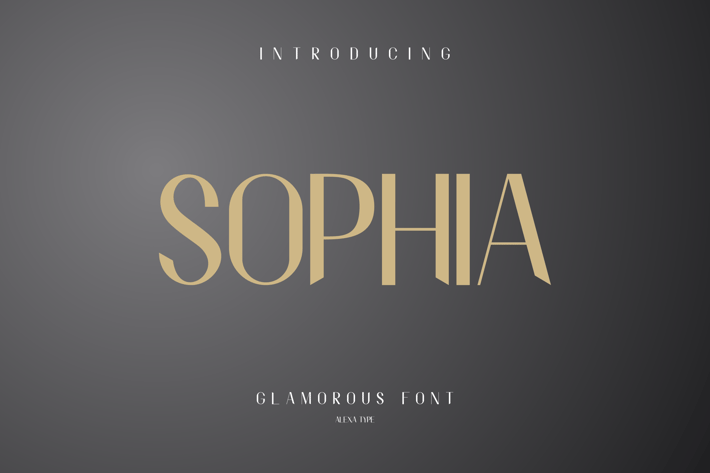
Sophia Font
Sophia is a luxurious, modern sans-serif font designed for high-end branding, fashion editorials, and elegant design projects. With its delicate yet confident letterforms, this font evokes class, sophistication, and timeless beauty. Whether you're crafting premium logos, magazine layouts, wedding invitations, or luxury product packaging, Sophia ensures your typography exudes style, grace, and refinement.
Key Features
Elegant & Timeless Sans-Serif Style – Perfect for high-end branding and luxury visuals.
Sophisticated Letterforms with Subtle Contrast – Delivers a refined, polished aesthetic.
Ideal for Editorial & Fashion Design – Suited for magazines, beauty products, and modern websites.
Versatile for Print & Digital Use – Works beautifully on branding, marketing materials, and invitations.
Sophia is perfect for designers, luxury brands, and creatives who seek a sophisticated, editorial look. Its graceful sans-serifs and refined elegance make it a top choice for fashion labels, high-end cosmetics, interior design branding, and premium lifestyle products. Whether used for romantic wedding stationery, high-fashion campaigns, or minimalist corporate identities, Sophia delivers a polished, high-class appeal.